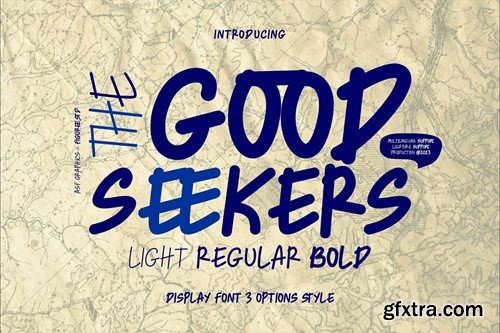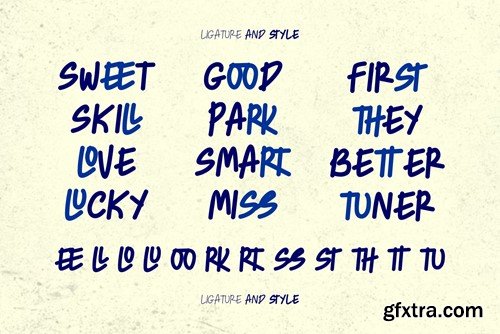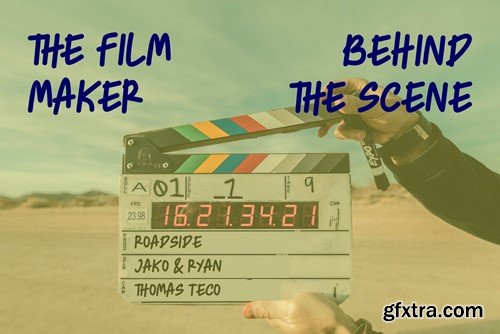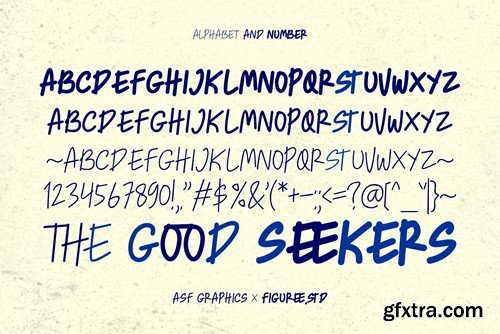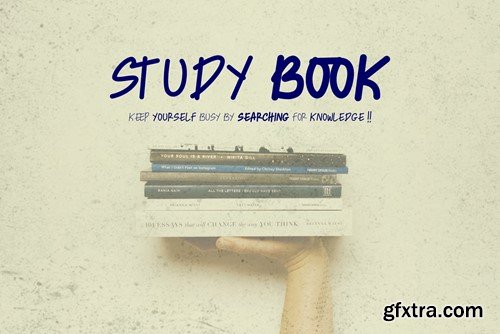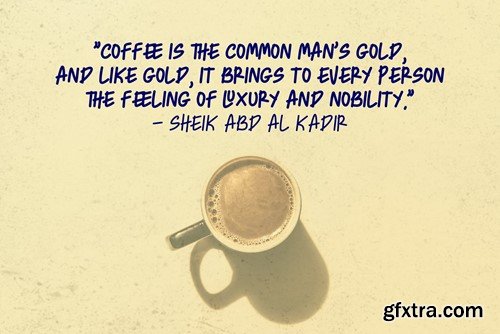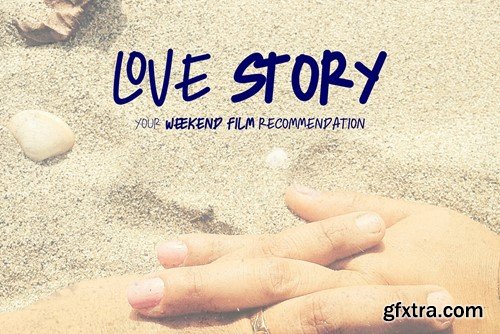
The Good Seekers - 手写体字体 DLWSUML
The Good Seekers - Handwritten Font DLWSUML
The Good Seekers - Handwritten Font
The Good Seekers is a charming handwritten display font that exudes warmth and playful. With its handcrafted, cursive lettering, this font adds a touch of authenticity and human touch to your designs. It's the perfect choice for projects that demand a friendly, approachable, and joyful feel, whether it's used for greeting cards, branding, or any design that seeks to establish a heartfelt connection with its audience. The Good Seekers brings a genuine and inviting character to your text, making it stand out with a touch of heart and soul.
Features:
• Standards Characters
• Ligatures
• Punctuation
• Support Multilingual